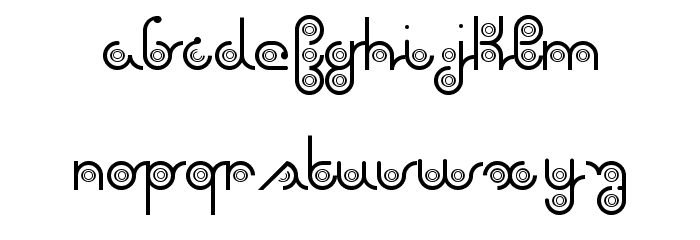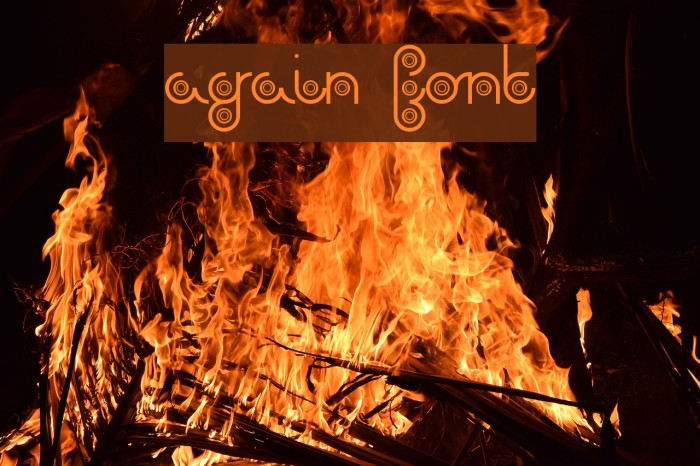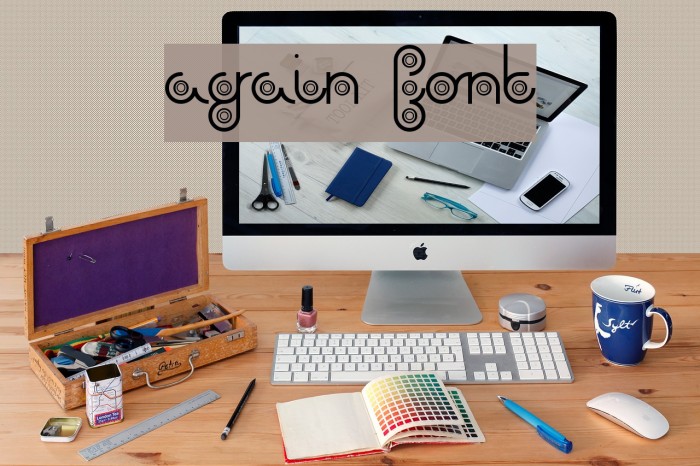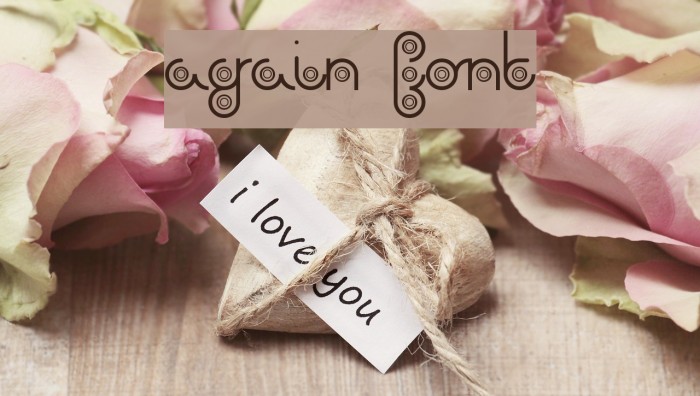
again Font
This font features a unique and decorative style with intricate circular patterns and loops integrated into each character. The letters are designed with a playful and artistic flair, making them stand out with their ornate details. The overall appearance is whimsical and creative, with a consistent use of circular motifs that give it a distinct personality. The font maintains a balance between readability and decorative elements, making it suitable for eye-catching designs. Its artistic nature makes it ideal for projects that require a touch of elegance and creativity.
A decorative font with intricate circular patterns and loops.
- Proposed Projects: Ideal for creative projects such as invitations, posters, branding, and artistic displays where a unique and decorative typeface is desired.
- Use Case: Logos, Headlines, Artistic projects